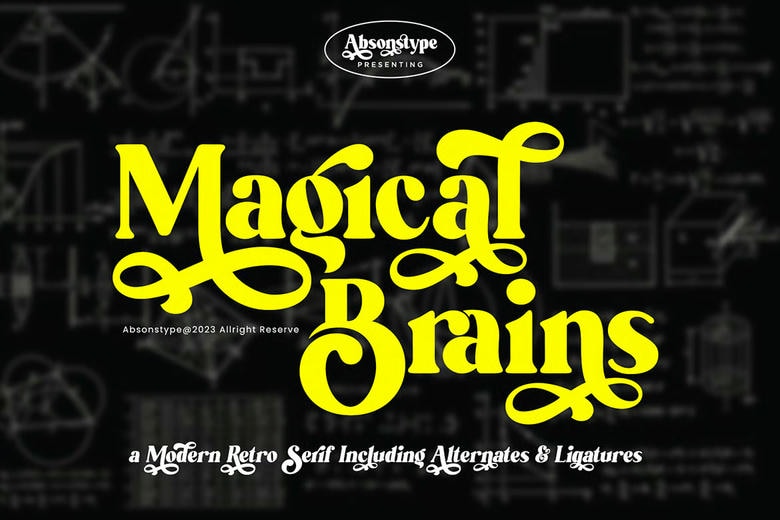
Magical Brains Font
Magical Brains is a bold and playful serif display font inspired by the retro aesthetic, infused with a modern twist. Designed to spark imagination and elevate visual storytelling, this typeface is packed with expressive details and a magical flair.
With tons of alternates and elegant ligatures, Magical Brains lets you create standout headlines, logos, and branding projects with ease and personality. Whether you’re designing for fashion, editorial, packaging, or digital media, this font delivers charm and impact.
Magical Brains Serif Font